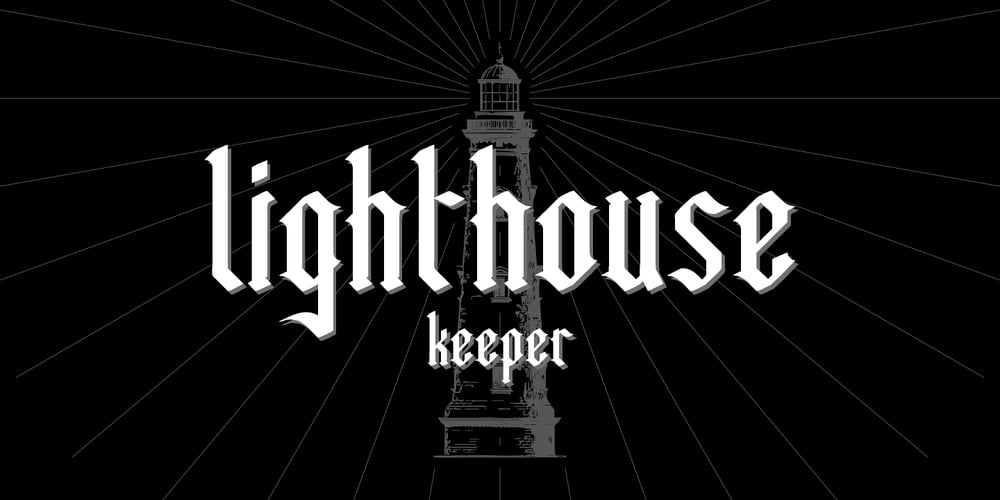
Lighthouse Keeper
Lighthouse Keeper font
Lighthouse Keeper Font Family was designed by Mikhail Kosmosov and published by Asterisk. Lighthouse Keeper contains 2 styles and family package options. A fine font for monumental projects. It inspires and perfectly motivates for success and stability. Created from handwritten calligraphy.